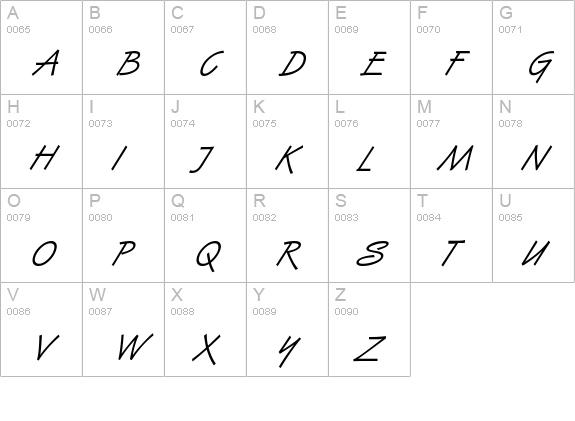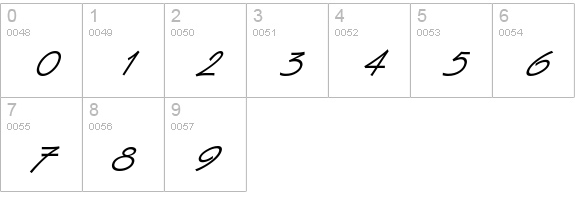
HandStroke Italic Font Details
HandStroke Italic is a distinctive, italic variant in the HandStroke typeface family \xE2\x80\x94 well suited to design and typography projects.
HandStroke Italic is a truly captivating font that effortlessly blends elegance with a touch of whimsy. With its flowing strokes and delicate curves, this font exudes a sense of grace and sophistication that is sure to make a lasting impression. Designed with meticulous attention to detail, HandStroke Italic is the perfect choice for those seeking a font that is both beautiful and unique. Its hand-drawn quality adds a personal touch to any project, making it ideal for invitations, stationery, branding, and so much more. But what truly sets HandStroke Italic apart is its versatility. Whether you're looking to create a romantic wedding invitation or a playful logo for a children's brand, this font can effortlessly adapt to any design concept. Its italicized style adds a dynamic flair, adding movement and energy to your words. And the best part? HandStroke Italic is freely available to download at FontsMarket.com. This means that you can access this stunning font without any cost, making it an excellent choice for designers on a budget or anyone looking to add a touch of elegance to their creative projects. So why wait? Download HandStroke Italic today and let its graceful strokes and timeless charm elevate your designs to new heights.